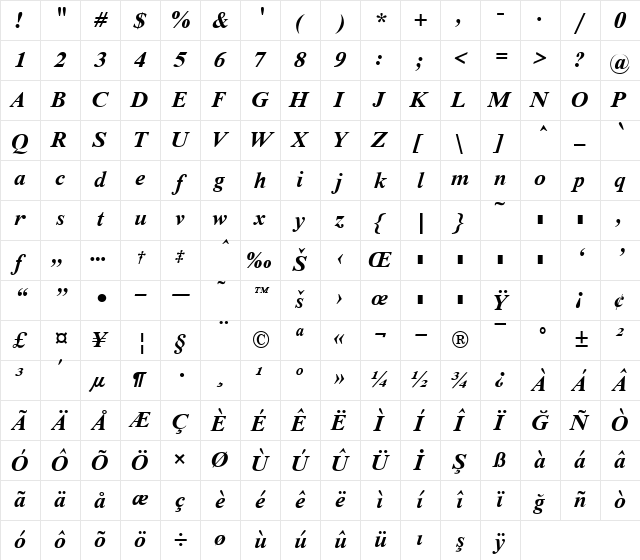
TmsTr is a composed and adaptable typeface that performs quietly and consistently across a wide range of design contexts. The slanted form adds forward momentum and visual energy. Its bold stroke weight gives it real presence on the page.
Pro Tip: Use TmsTr for emphasis, pull quotes, and subheadings where its slanted energy can add rhythm to the layout.